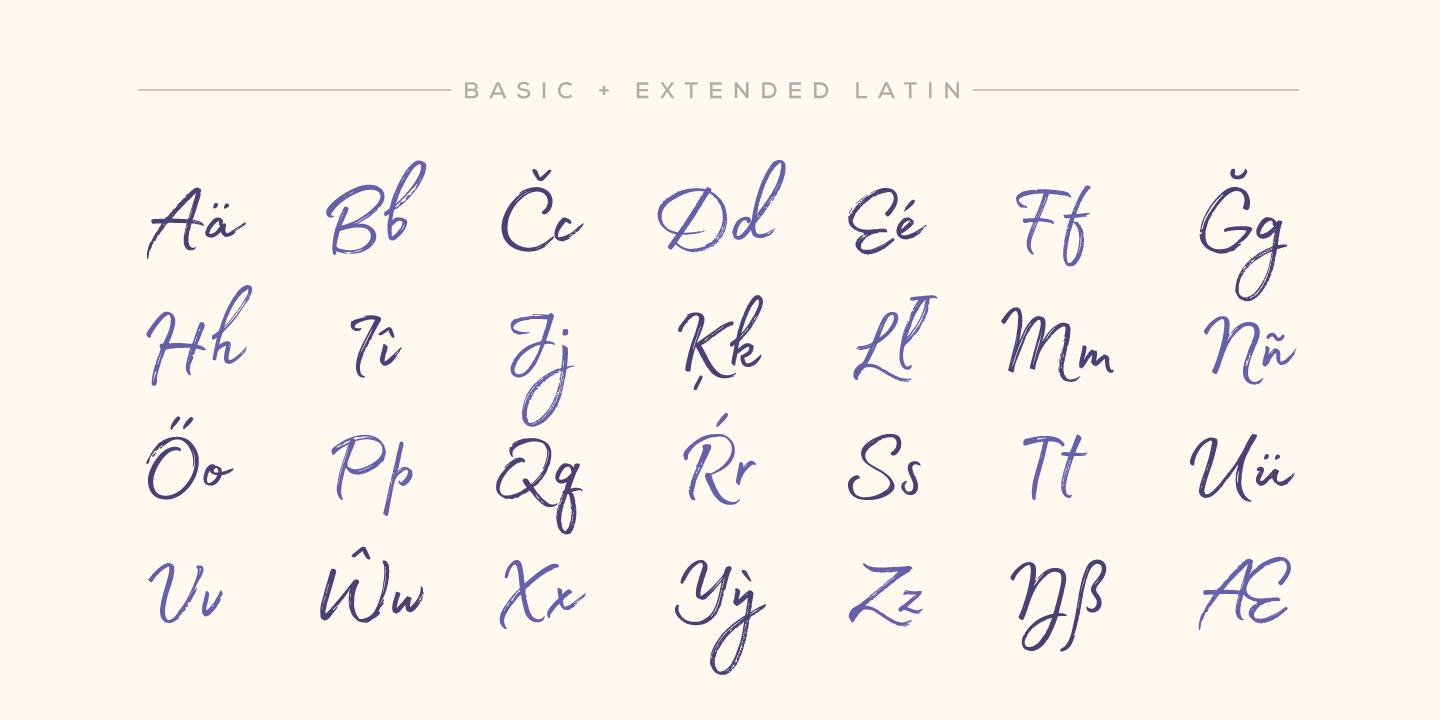
About the Madelyn Font
About Madelyn Font Family Madelyn is a handwritten script font based on the expression of real handwriting, Amiable and organic, it is perfect if you want to convey individuality and style, It’s written with a calligraphy pen with casual dry strokes and a signature style, This script contains upper and lowercase characters with pleasant low x-height and high ascenders and descenders—and also numerals and a large range of punctuation and symbols
More than 100 ligatures are also available for upper and lowercase characters—double-letters which flow more naturally, Contextual alternates are part of the Open Type feature set, Madelyn Doodles includes a set of handmade ornaments, icons and swashes that can help you for your key visual
Madelyn is perfect for branding projects, logos, product packaging, posters, invitations, greeting cards, titles, blogs, everything that includes personal charm, Designers: Svetoslav Simov, Jacklina JekovaPublisher: FontfabricFoundry: FontfabricDesign Owner: FontfabricMyFonts debut: Jan 5, 2017 Madelyn™ is a trademark of Fontfabric